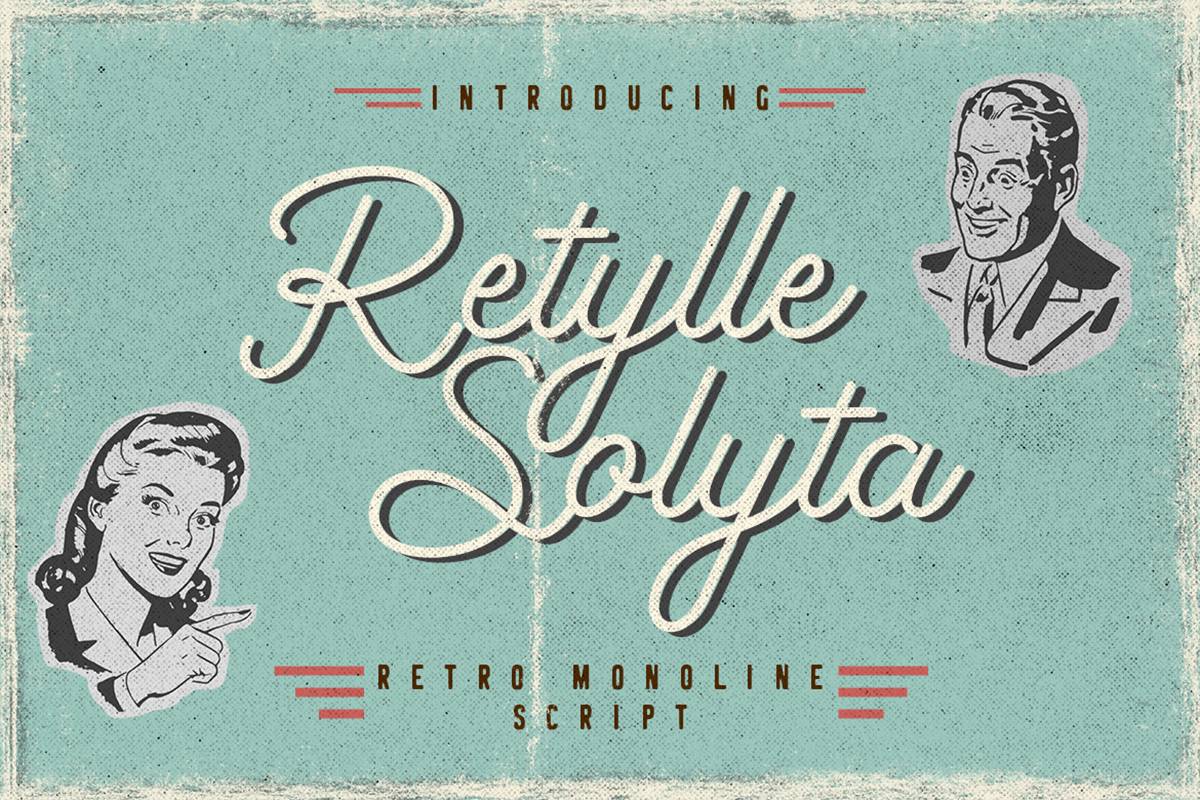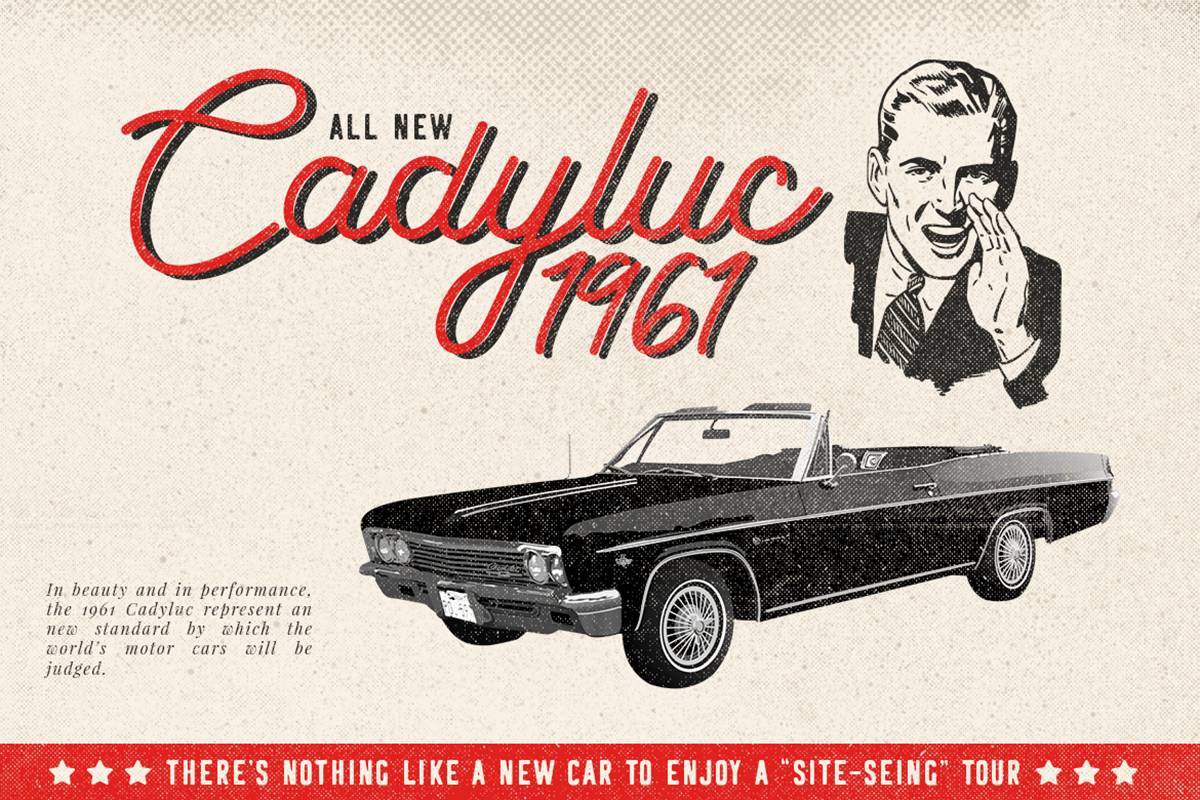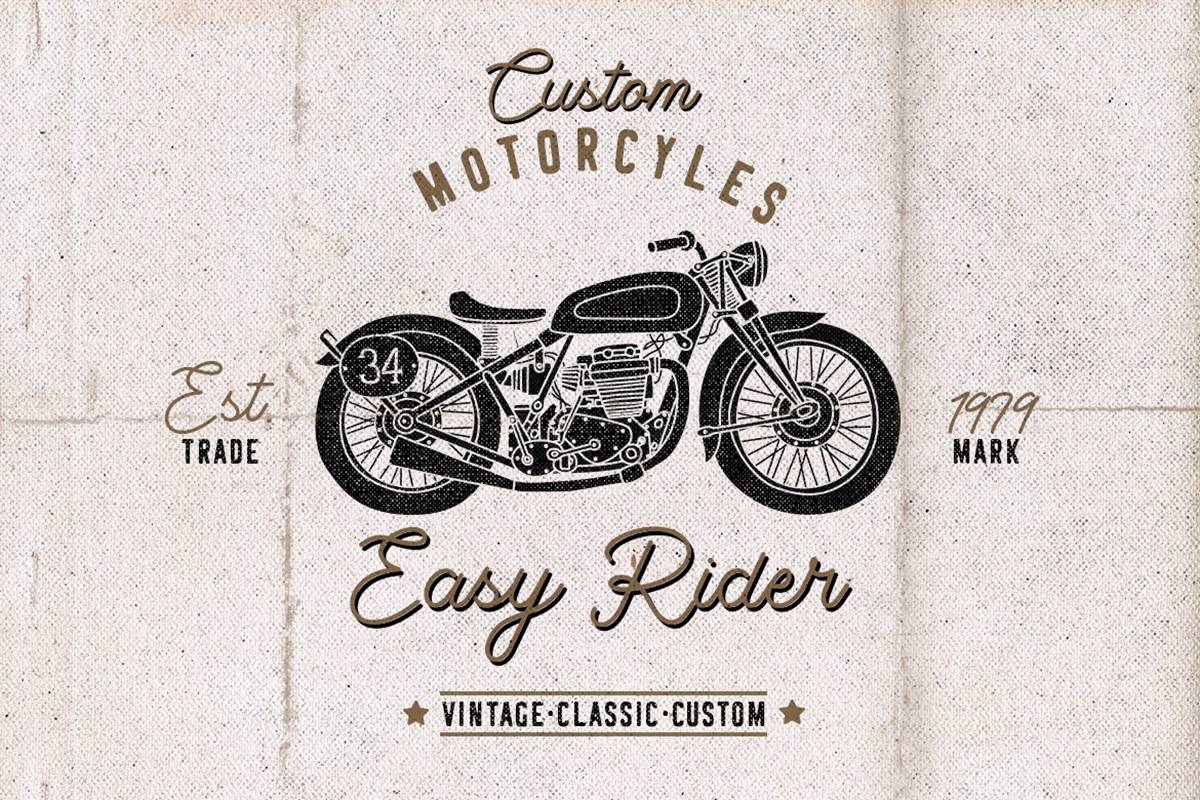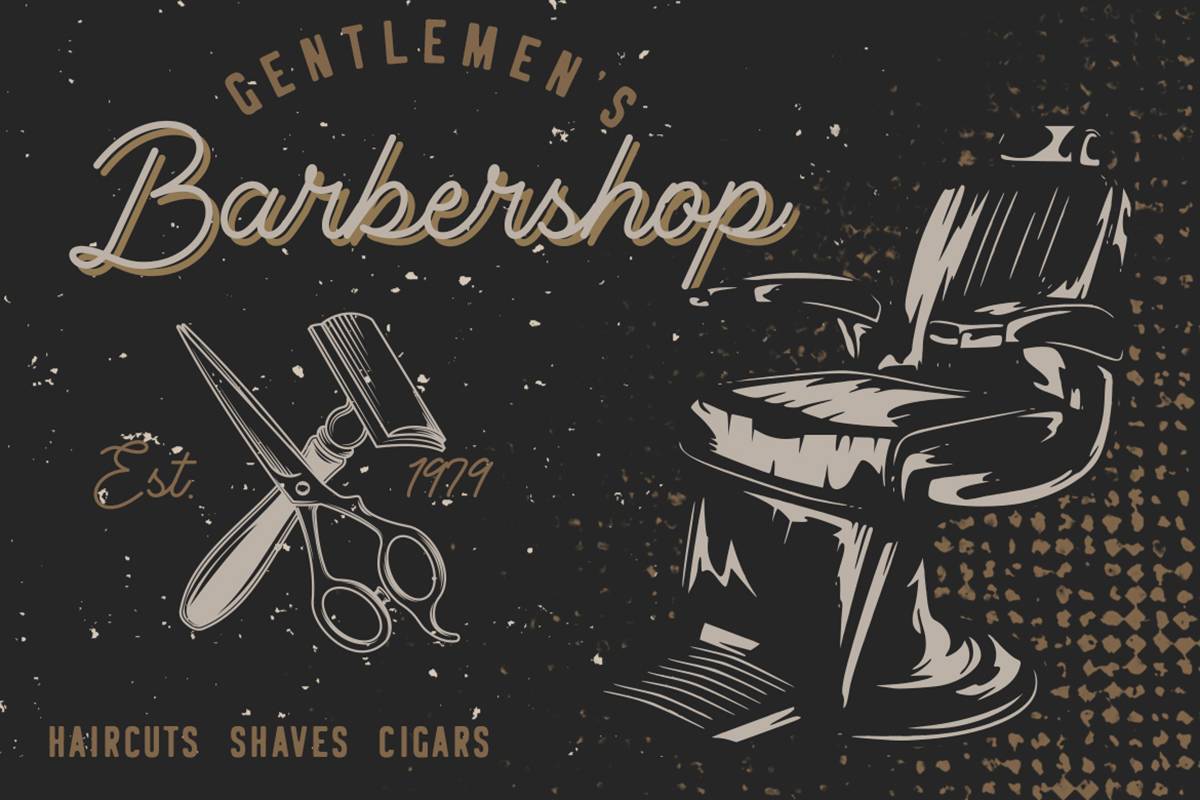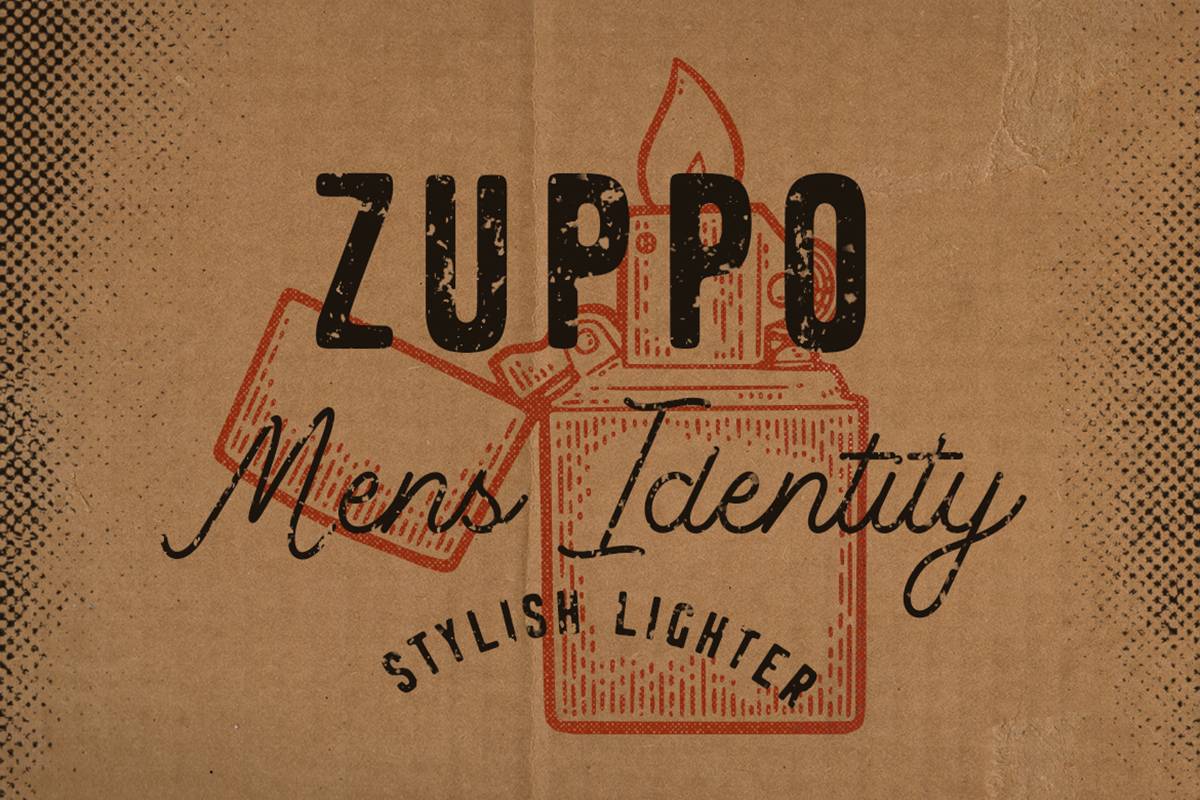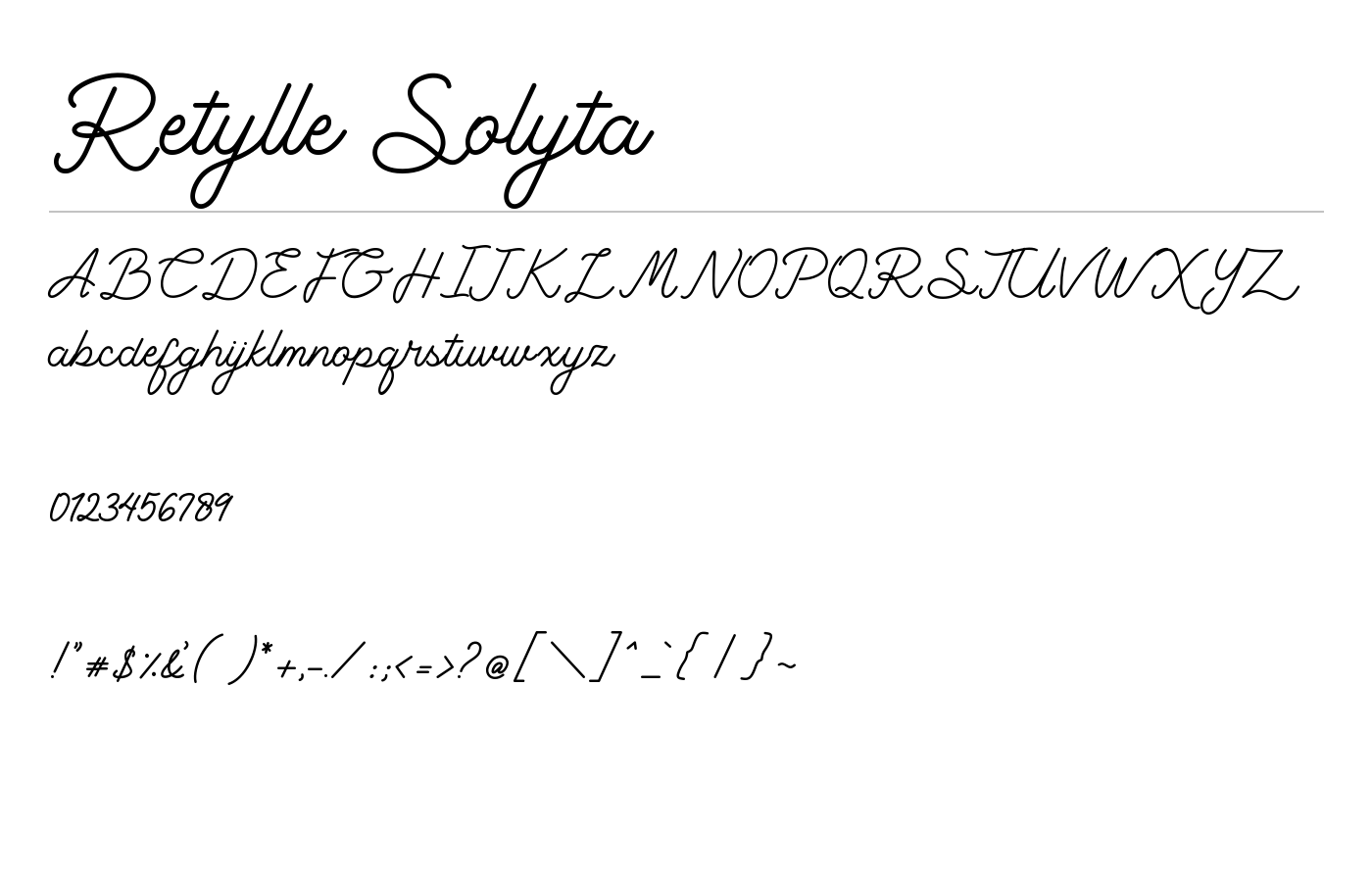
Retylle Solyta is an elegant handwritten script font with a light, flowing weight and smooth, casual curves that give it a natural, personal touch. Its slender, slightly slanted letterforms with rounded strokes make it perfect for adding a refined, approachable feel to invitations, branding, or stylish editorial designs. This font works best where a delicate, handwritten aesthetic is desired, bringing charm and sophistication without overpowering the message.
Retylle Solyta Font
About Retylle Solyta Font